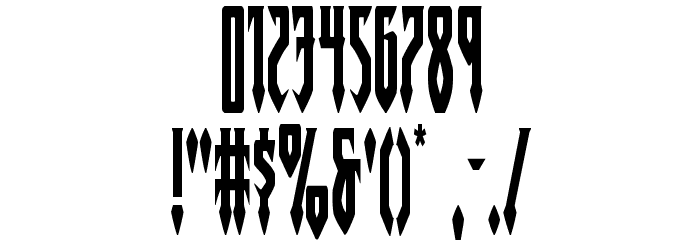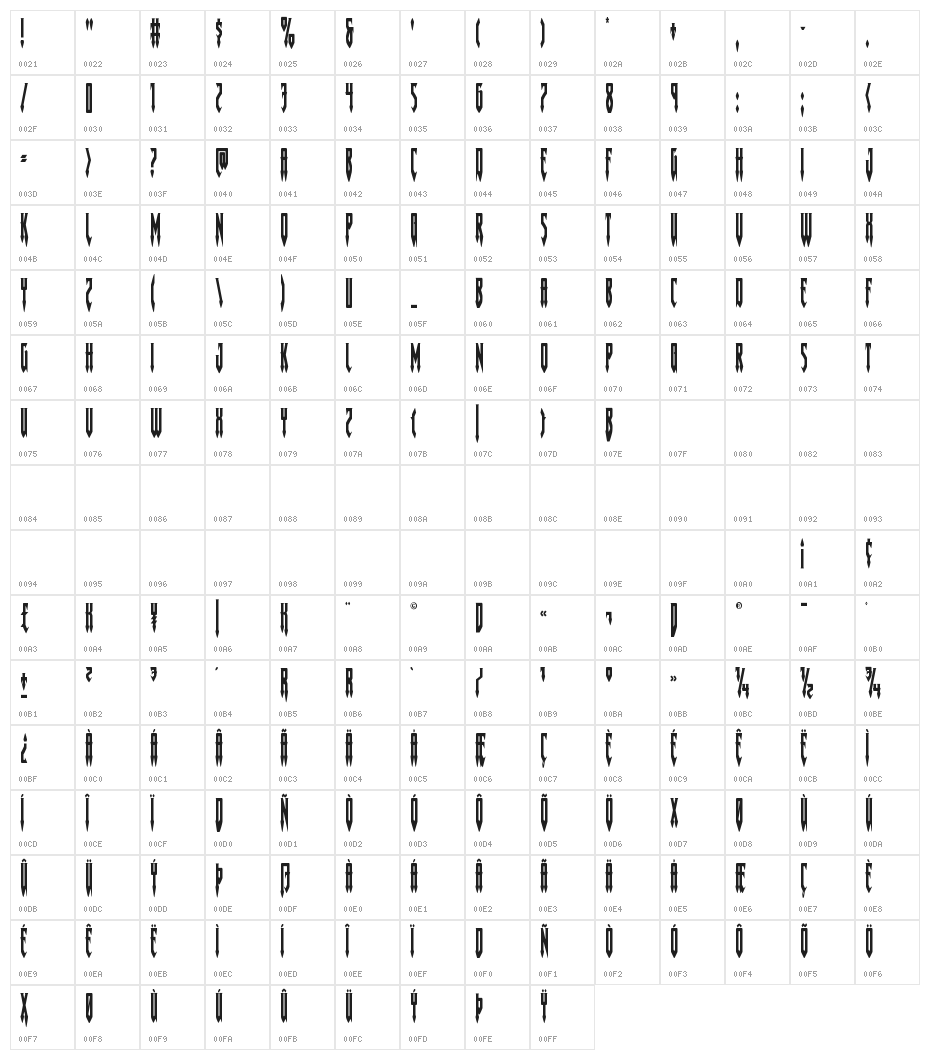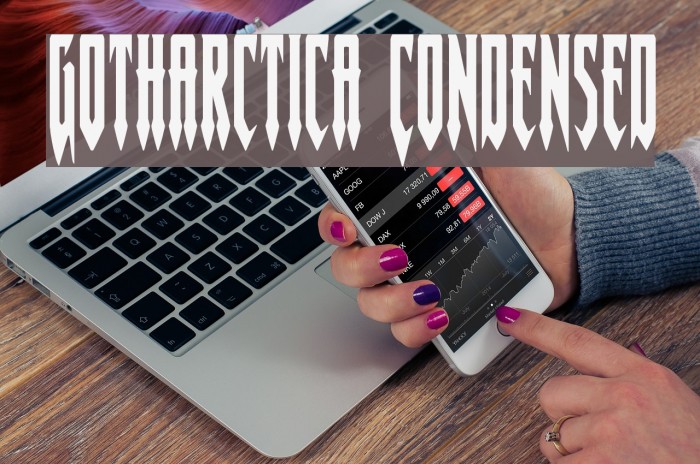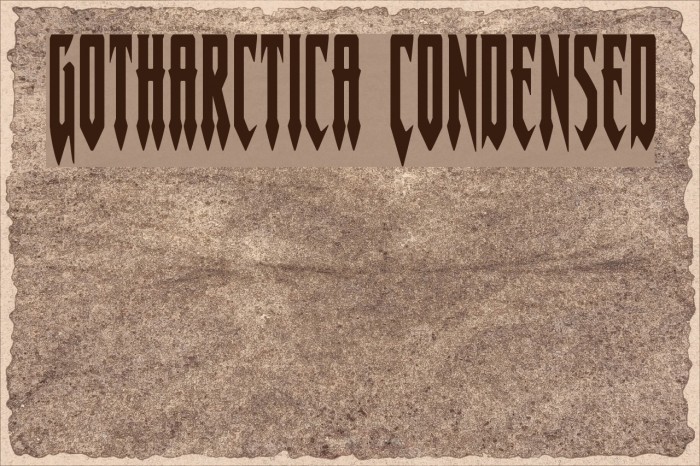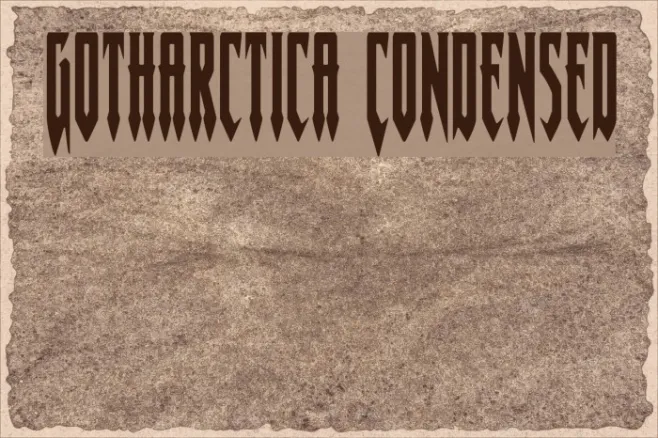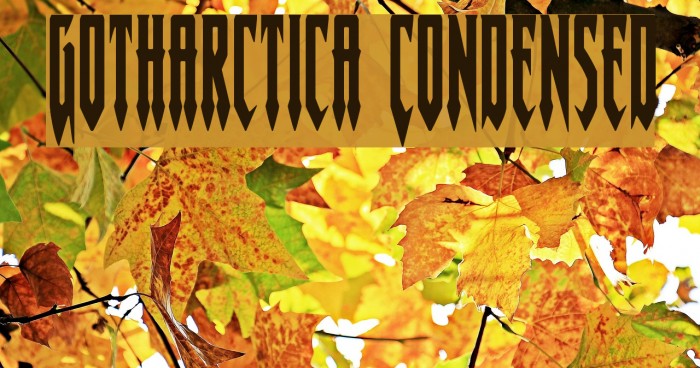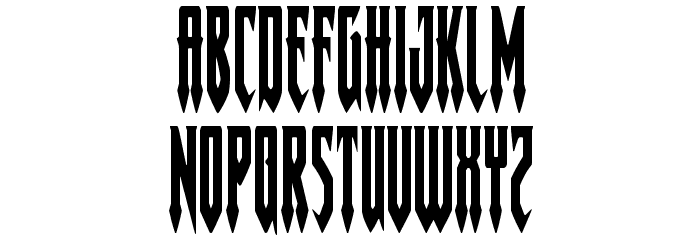
Gotharctica Condensed Font
Gotharctica Condensed Description
This font features a bold, condensed style with sharp, angular edges and a gothic influence. The uppercase and lowercase letters maintain a consistent height, creating a uniform appearance. The numerals and special characters follow the same design principles, ensuring cohesion across all elements. The font's distinct, pointed serifs and narrow width give it a striking and dramatic look, ideal for making a strong visual impact.
| Overall Style | Gothic, Decorative |
| Proposed Projects | Ideal for projects requiring a dramatic and bold aesthetic, such as posters, album covers, or branding for edgy or alternative products. |